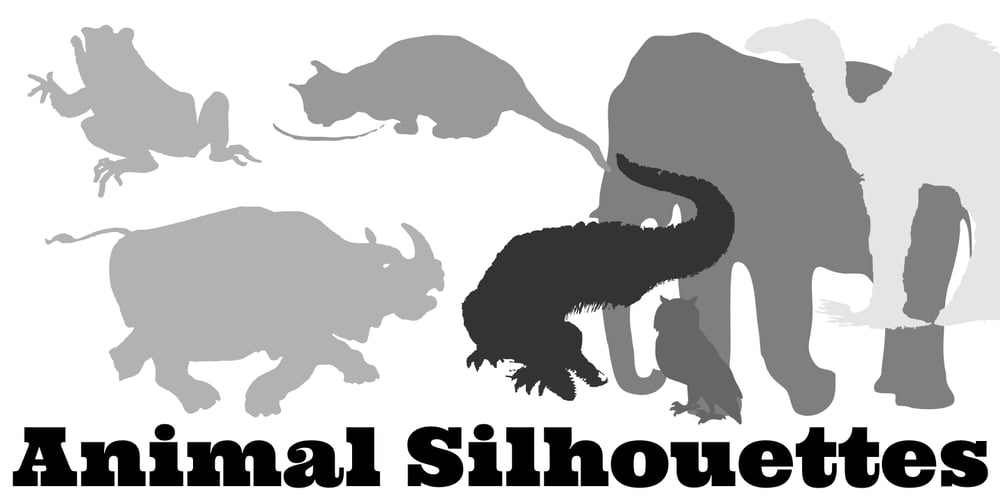
Animal Silhouettes Font Family was designed by Paulo W and published by Intellecta Design. Animal Silhouettes contains 1 styles and family package options. a sort of wild pets and zoo silhouettes from animals